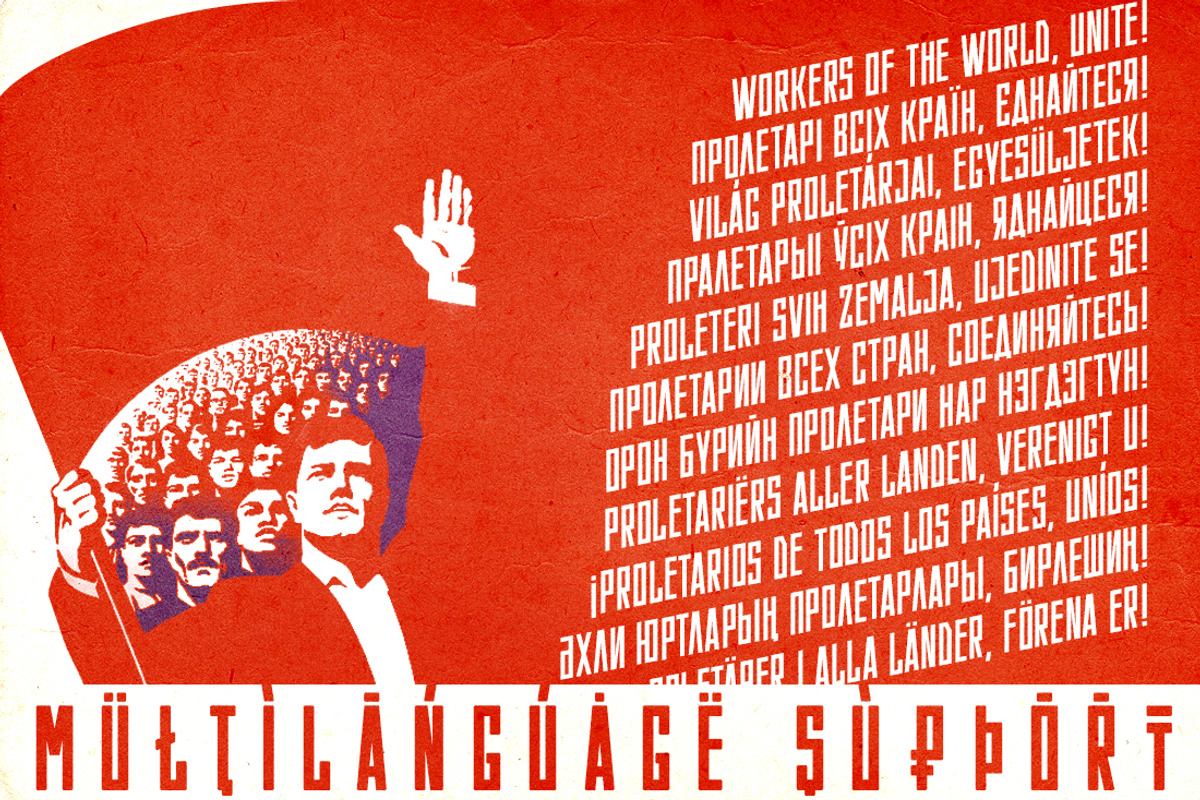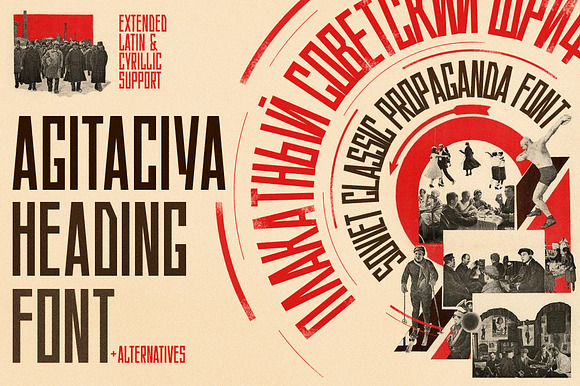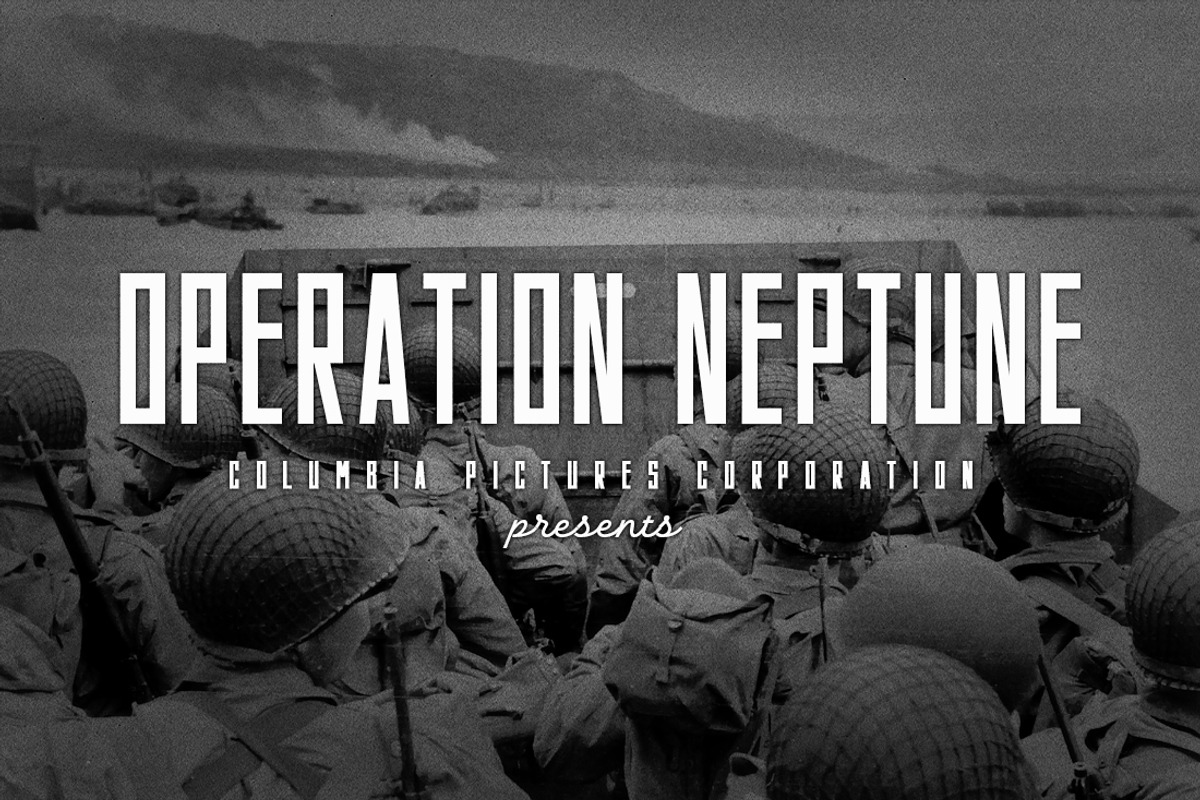
AGITACIYA Soviet propaganda font
Introducing a retro narrow grotesque called "Agitaciya" (Agitation). Bring back to the Soviet Era Agitation inspired by Soviet posters, movie titles and book covers. The letterforms are straight and condensed and come in 2 styles: uppercase and small caps alternatives. It has Extended LATIN and Extended CYRILLIC letters. "Agitaciya"created for titles, poster design, web design, branding and packaging works, illustrations, badges and other typography works.
- The letterforms are straight and condensed and come in 2 styles: uppercase and small caps alternatives.